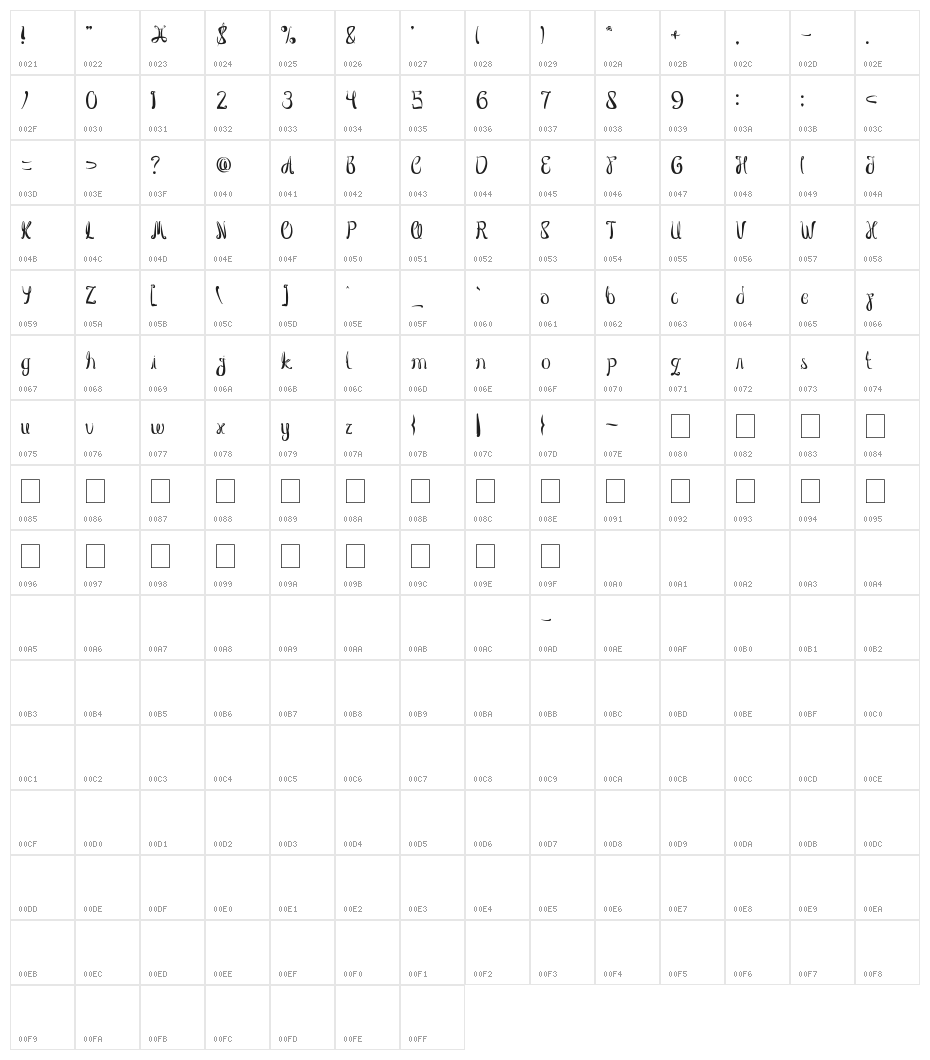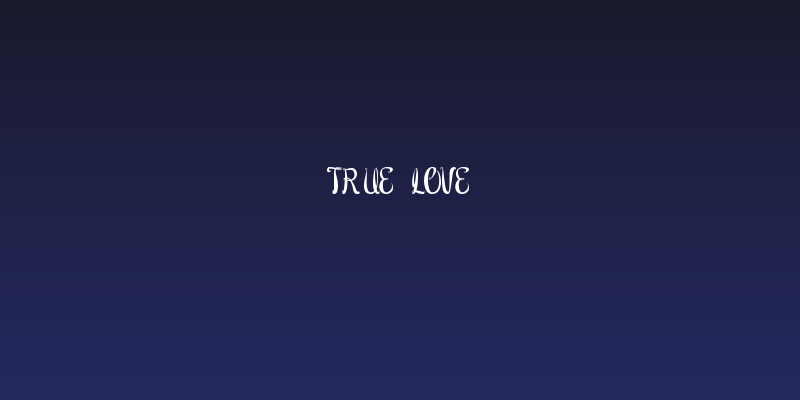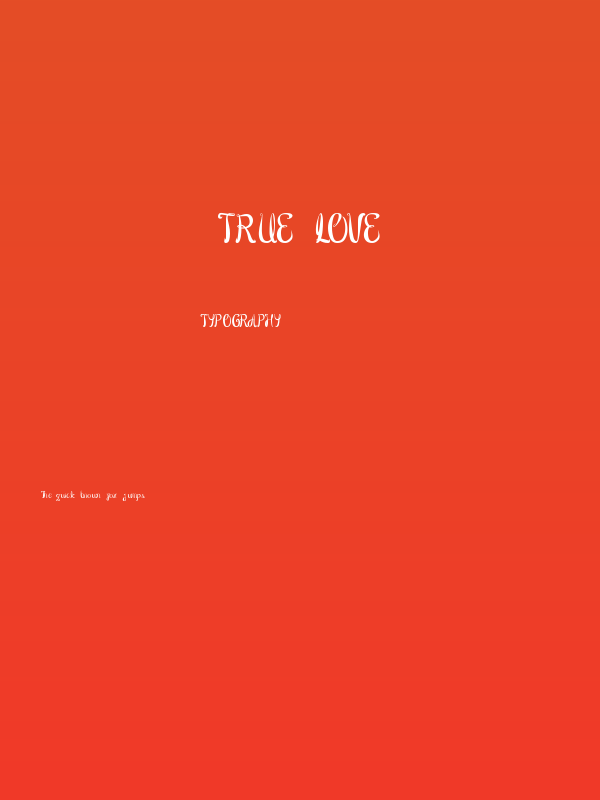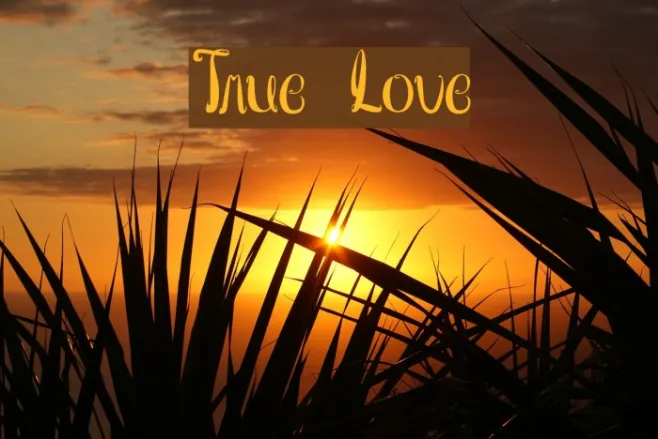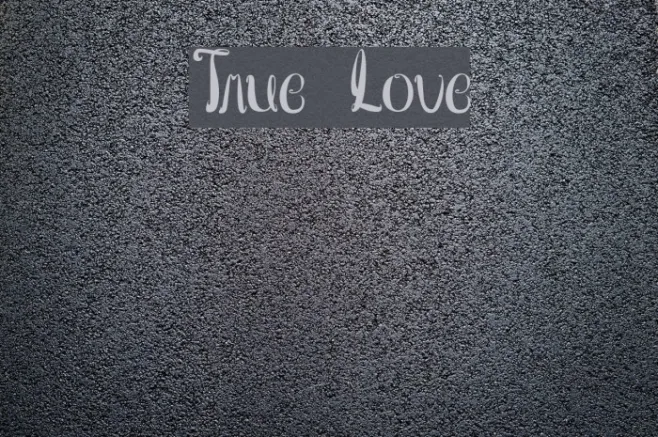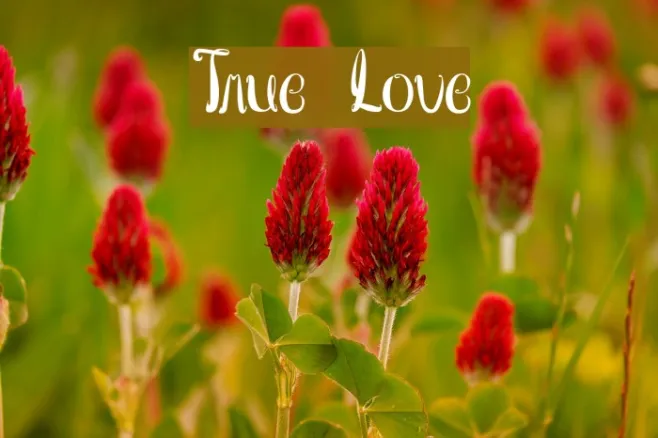
True Love Font
True Love Description
This font features a whimsical and playful style with a handwritten appearance. The characters have a unique flow, with varying stroke thickness that adds a dynamic feel. The uppercase letters are bold and slightly exaggerated, while the lowercase letters maintain a consistent style with a touch of elegance. The numerals are distinct and easy to read, complementing the overall aesthetic. Special characters are creatively designed, enhancing the font's decorative nature. This font is ideal for projects that require a personal touch or a creative flair.
| Proposed Projects | Perfect for greeting cards, invitations, branding, and creative posters. |